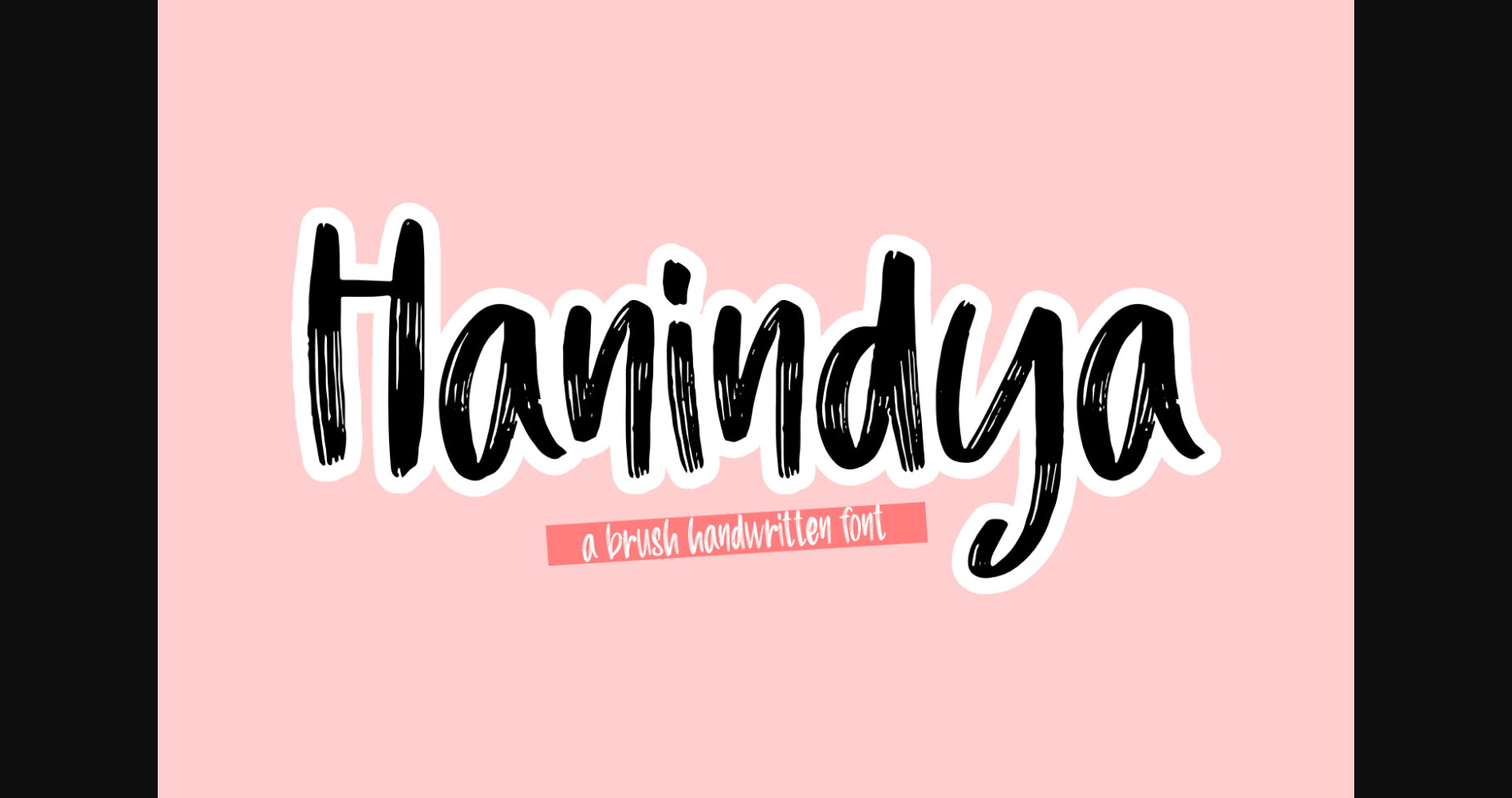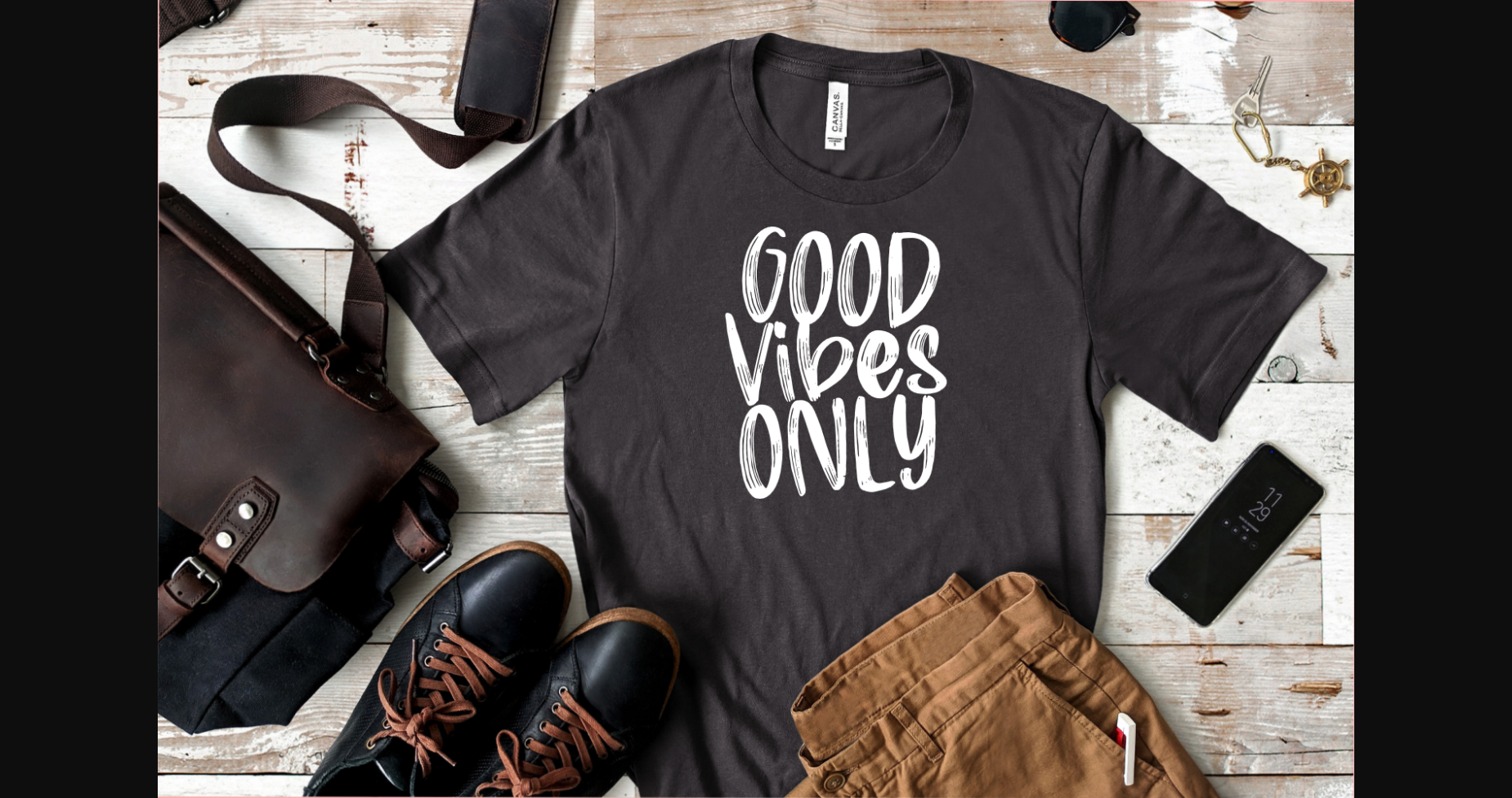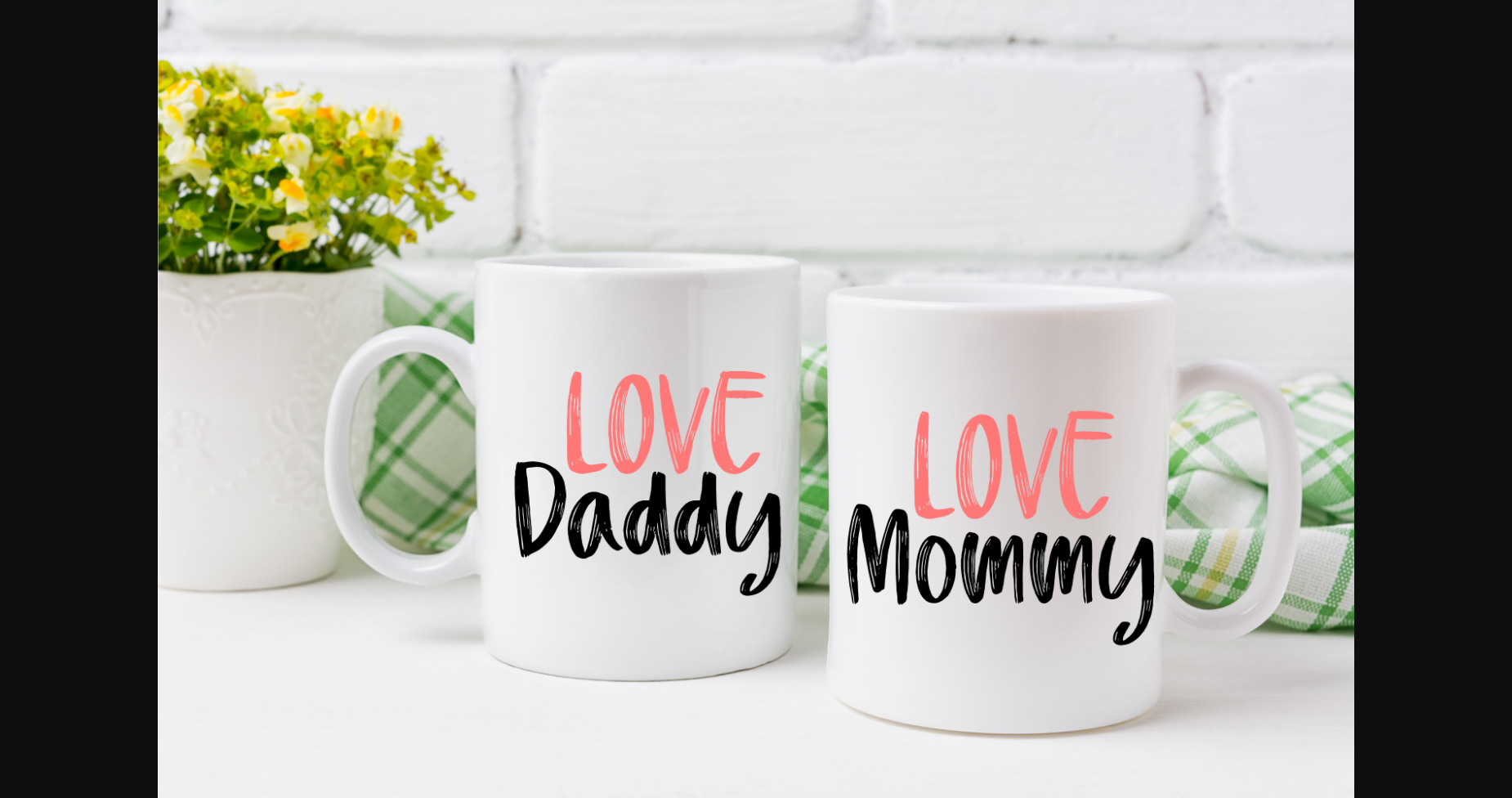
Hanindya Font
About Hanindya Font
Hanindya is a lovely sans serif font. This sweet and friendly design will beautifully complement your creative projects, from labeling to book covers, and more!